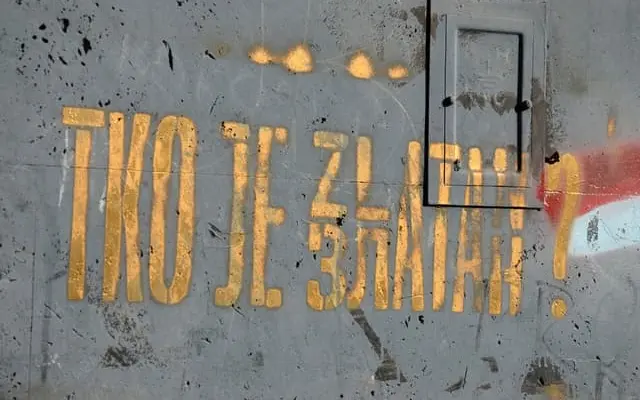
Balkan Sans Stencil
A stencil system built on Balkan Sans, offering multiple aperture variants for graphic and display applications.
Derived from Balkan Sans, the stencil family offers several distinct cut variants, labelled One A through Three A and B, each differing in the width and placement of stencil bridges across letterforms. Individual styles are sold under names drawn from world cities: Amsterdam, Bengaluru, Copenhagen and Damascus. The system suits signage, posters and identity work where stencil texture is required without sacrificing geometric clarity.
A stencil variant of Balkan Sans, a geometric sans-serif family. The stencil treatment places it firmly in display territory, with multiple stencil aperture variants and named sub-styles.